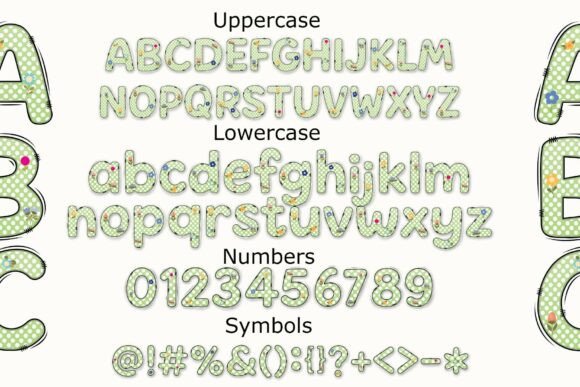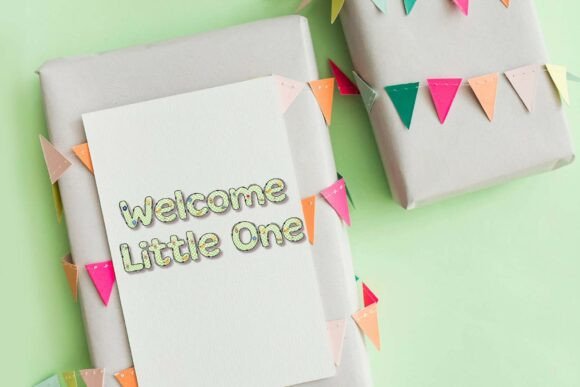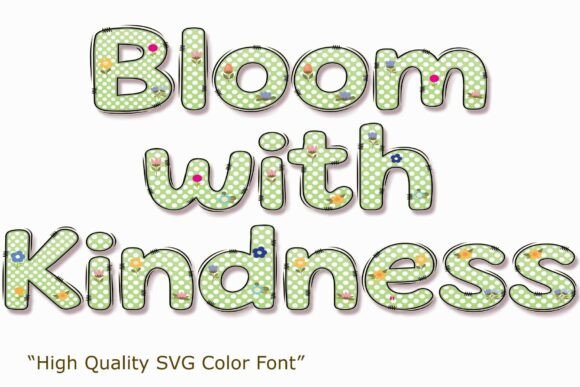
Introduction to Mintmeadow Font
Mint Meadow is a cute pastel patchwork color font featuring mint–green polka–dot letters decorated with flowers and stitched details.
Perfect for baby showers, kids’ cards, stickers, scrapbooks, craft projects, and nursery designs Includes OTF/TTF/SVG + high–quality PNGs.